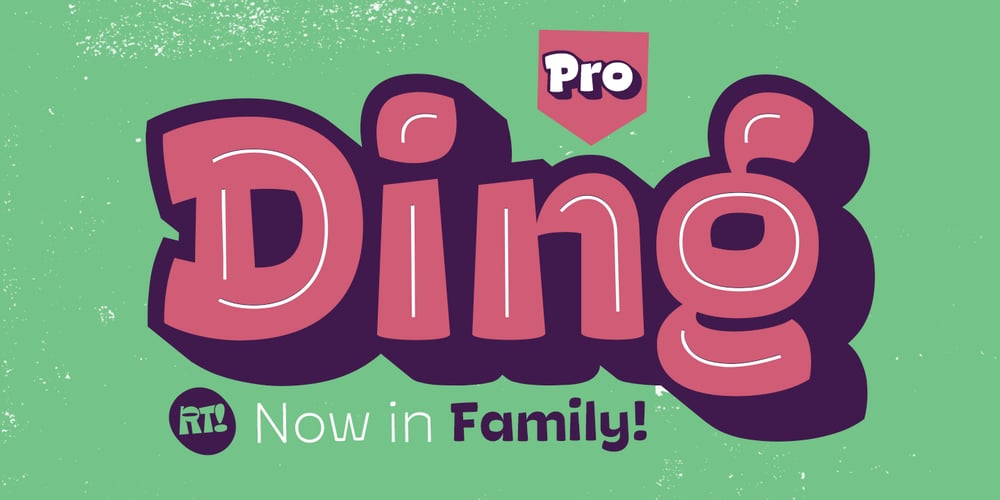
Ding Pro Font Family was designed by Andrey Kudryavtsev, Rodrigo Araya Salas, Franco Jonas Hernández and published by RodrigoTypo. Ding Pro contains 13 styles and family package options. Ding pro! is a typographic family that contains many alternatives from ligatures to styles like Rough, Hand, UltraLight-Heavy, special for children-Youth titles.